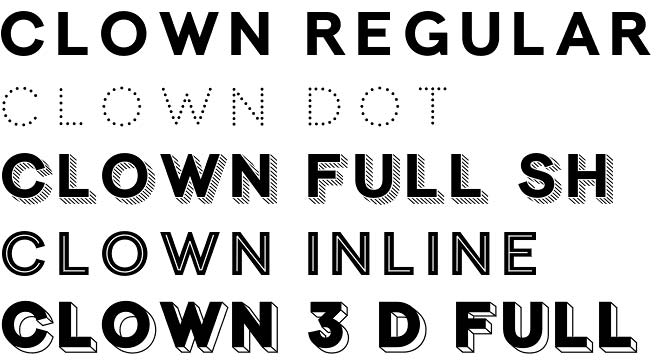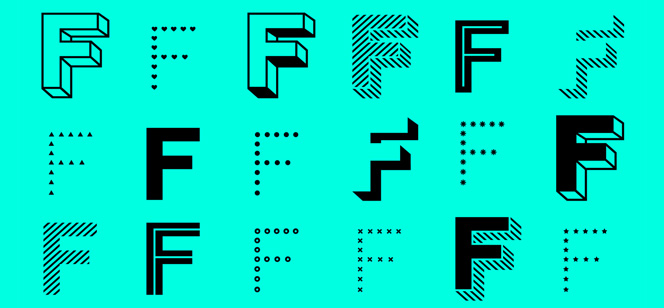
Clown font
Clown font is probably the biggest multi-layer family we have ever seen. With the remarkable 18 different styles, Clown offers a mind-breaking number of combinations – nearly 150 according to font description. That is really a lot especially if you use it for catchy strong headlines, retro logos, typographic posters and t-shirts, packaging and other types of ads following the style of early 19th Century. Clown is a real work-horse in your work leaving you a lot of space for creativity, stimulating you to think of more and new fresh ideas. The family is Open Type compatible supporting uppercase letters and diacritics for most of the Latin languages, figures, arrows and currency symbols.
Clown font family hides a lot of potential and hidden options especially if used properly but what is really amazing and remarkable here is that it is the debuting font of Tereza Šmídová – amazing work to start with!